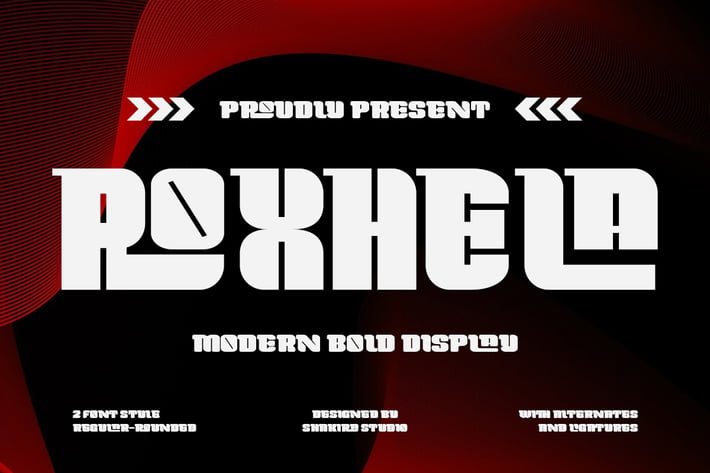
Roxhela - Modern Bold Display Logo Font
Roxhela – Modern Bold Display Logo Font for Impactful Branding
Roxhela is a commanding modern display font that combines bold aesthetics with versatile functionality. Featuring both regular and rounded versions with dynamic alternates and ligatures, this typeface is engineered to create striking logos, memorable branding, and eye-catching packaging designs that demand attention.
Where Bold Modernism Meets Strategic Versatility
With its assertive character shapes and contemporary rounded alternative, Roxhela delivers unmatched flexibility for brands seeking both impact and approachability. The carefully crafted alternates and ligatures empower designers to create distinctive wordmarks with perfect letter harmony.
Premium Features Include:
- High-Impact Display Design - Bold yet balanced letterforms for maximum visibility
- Dual Style Versions - Regular & rounded for brand personality options
- Strategic Alternates - 30+ character variations for unique combinations
- Custom Ligatures - Seamless letter connections for flawless logos
- Universal Application - From packaging to environmental signage
- Extended Language Support - Comprehensive Latin character coverage
Make Your Mark with Roxhela's Confident Presence
Ideal for:
- Tech startup branding
- Sports/energy logos
- Product packaging with attitude
- Music festival promotions
- Editorial headline typography